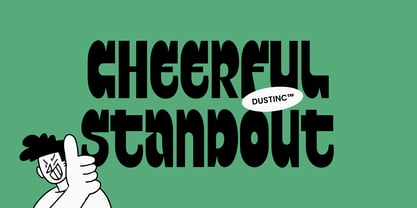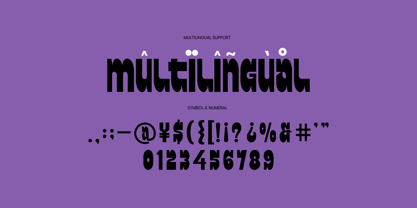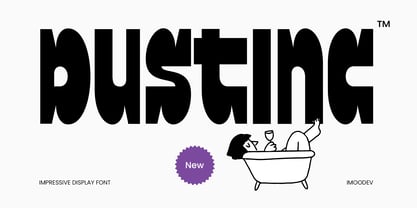
Dustinc
by Imoodev
The Dustinc Font Family was designed by Aulia Savira Putri and published by Imoodev. Dustinc contains 1 styles. More about this family
DUSTINC is a bold modern display typeface with just a hint of nostalgia. Geometric 70s vibes mix with more modern experimental outlines creating a bold yet approachable typeface.
Font this letter is slightly irregular, with large, rounded edges that are visually engaging. It is appropriate for use in both digital and print mediums, including logos, headlines, signage, headers, designs that need that retro, hipster feel with a contemporary edge, poster, flyers, greeting cards, packaging, book cover, printed quotes, cover album, movie or promotional materials that aim to convey energy and positivity.
Features:
• Uppercase and Lowercase
• Punctuation, Alternates and, Ligatures
• Number and Symbol
• Multilingual Support
• Opentype Features
Designers: Aulia Savira Putri
Foundry: Imoodev